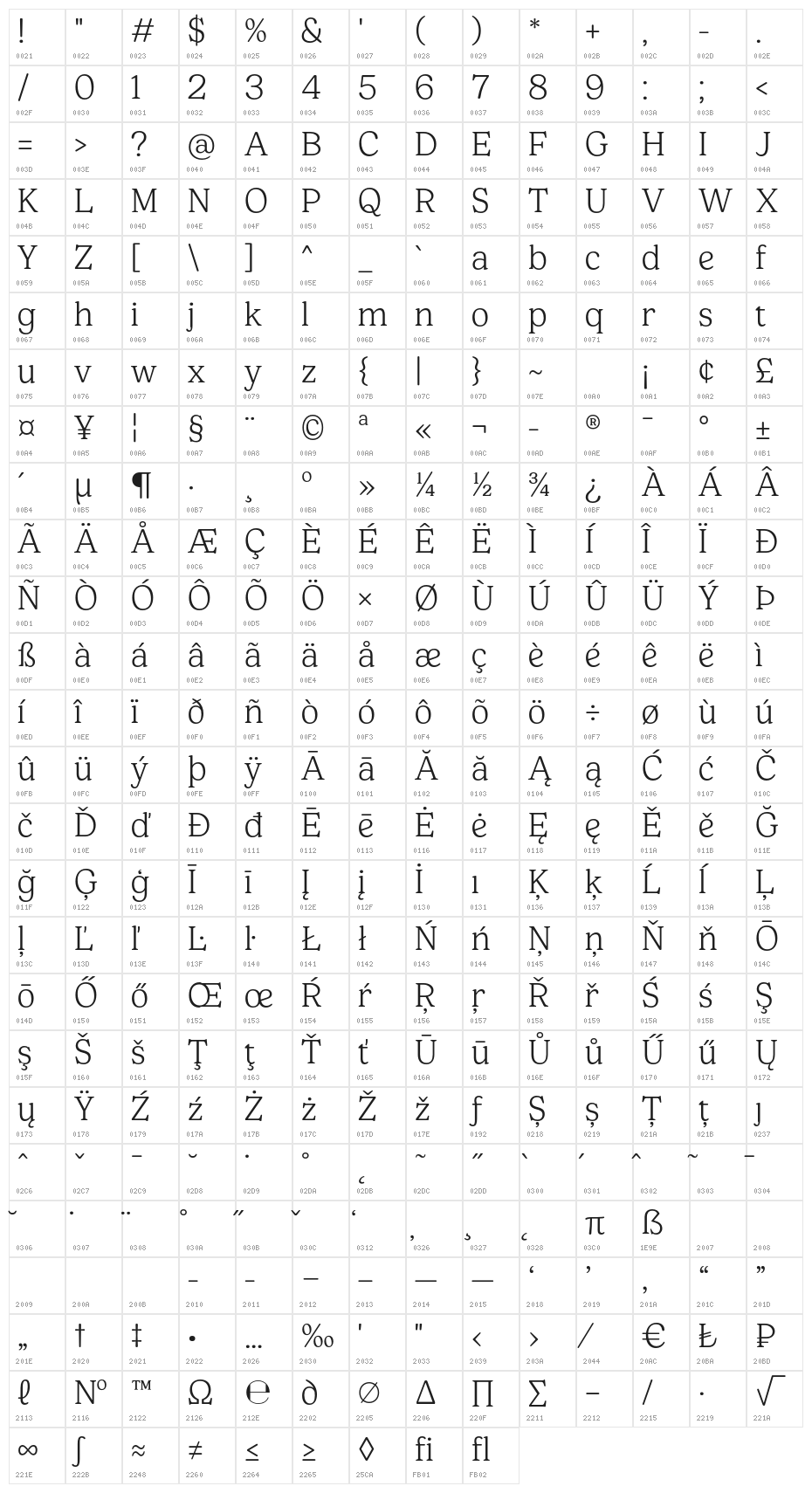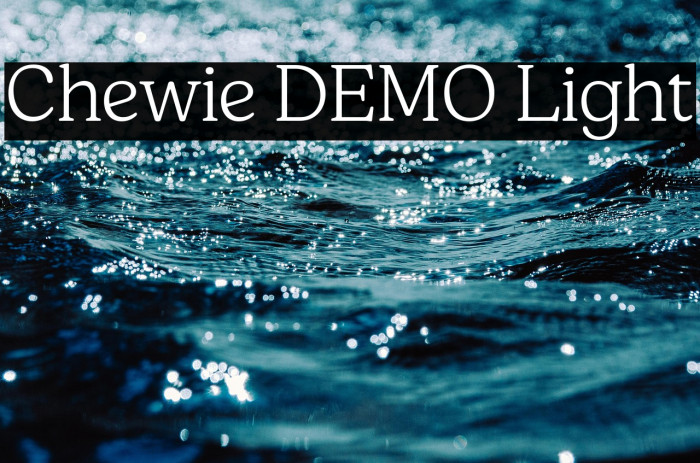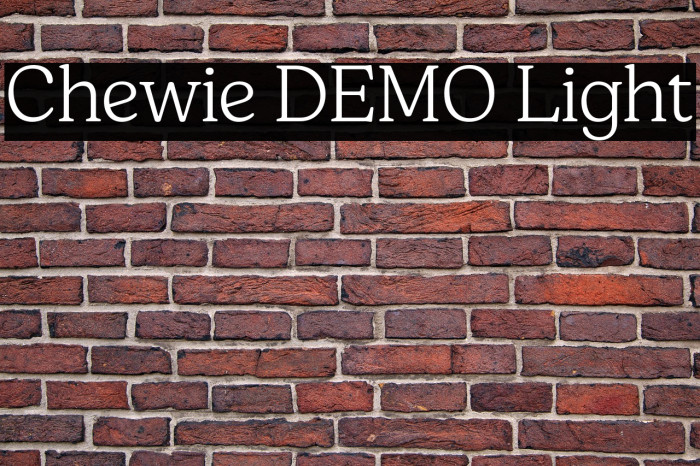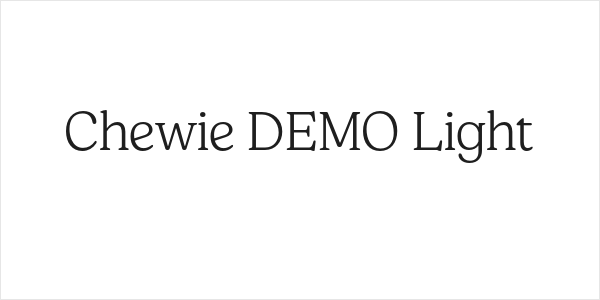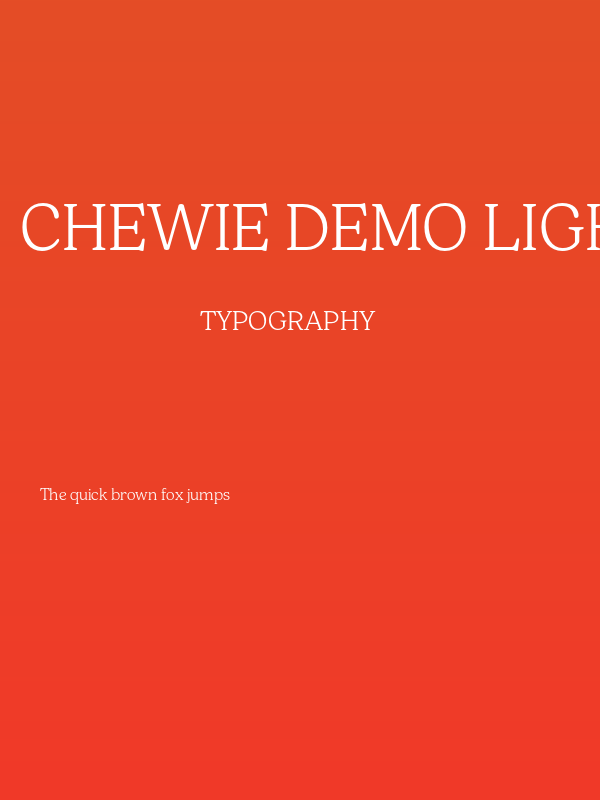
Chewie DEMO Light Font
Chewie DEMO Light Description
This font exhibits a clean and elegant serif style, characterized by its thin and graceful strokes. The letterforms are well-proportioned with a classic touch, making it suitable for both modern and traditional designs. The uppercase letters are slightly taller than the lowercase, providing a balanced and readable appearance. The numerals are distinct and clear, ensuring legibility in various contexts. Special characters are designed with the same attention to detail, maintaining consistency throughout the typeface.
| Proposed Projects | Ideal for editorial design, book covers, formal invitations, and branding projects that require a touch of sophistication. |